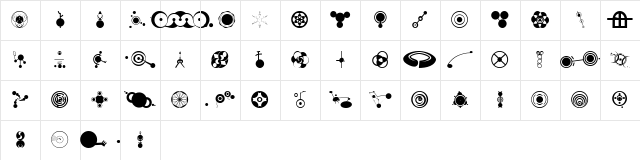
Complete CropBats AOE Regular glyph index. Displaying only characters natively supported by CropBats AOE Regular font.
CropBats AOE is a composed and adaptable typeface that performs quietly and consistently across a wide range of design contexts.